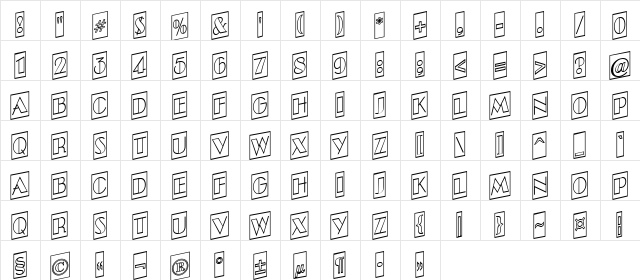
a_BentTitulCmUpOtlNr Regular
Design Context for a_BentTitulCmUpOtlNr Typeface
a_BentTitulCmUpOtlNr is a composed and adaptable typeface that performs quietly and consistently across a wide range of design contexts.